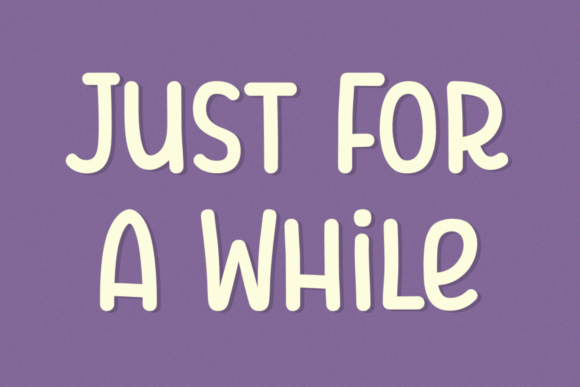
Dive into the world of bold and captivating typography with Just for a While, the sans serif font that exudes confidence and makes a statement. Crafted by the talented Situjuh, this font is a visual masterpiece that will elevate your designs to new heights.
Just for a While is not just a font; it's an experience. Its thick, robust strokes command attention, while its clean lines and elegant curves create a harmonious balance. Whether you're designing logos, posters, social media graphics, or product packaging, this font will make your words pop and leave a lasting impression.
With Just for a While, you'll unlock a world of creative possibilities. Design stunning branding materials that reflect your brand's personality. Create eye-catching advertisements that grab attention and leave a lasting impact. Elevate your sublimation projects with vibrant and unique designs that will make your creations stand out from the crowd. Transform fabrics into works of art with prints that showcase the beauty of Just for a While's bold characters.
So why settle for ordinary fonts when you can embrace the extraordinary? Just for a While is more than just a font; it's a tool that empowers you to express yourself and communicate your message with impact. Don't miss out on this chance to elevate your designs and leave a lasting impression. Download Just for a While today and experience the power of bold typography.